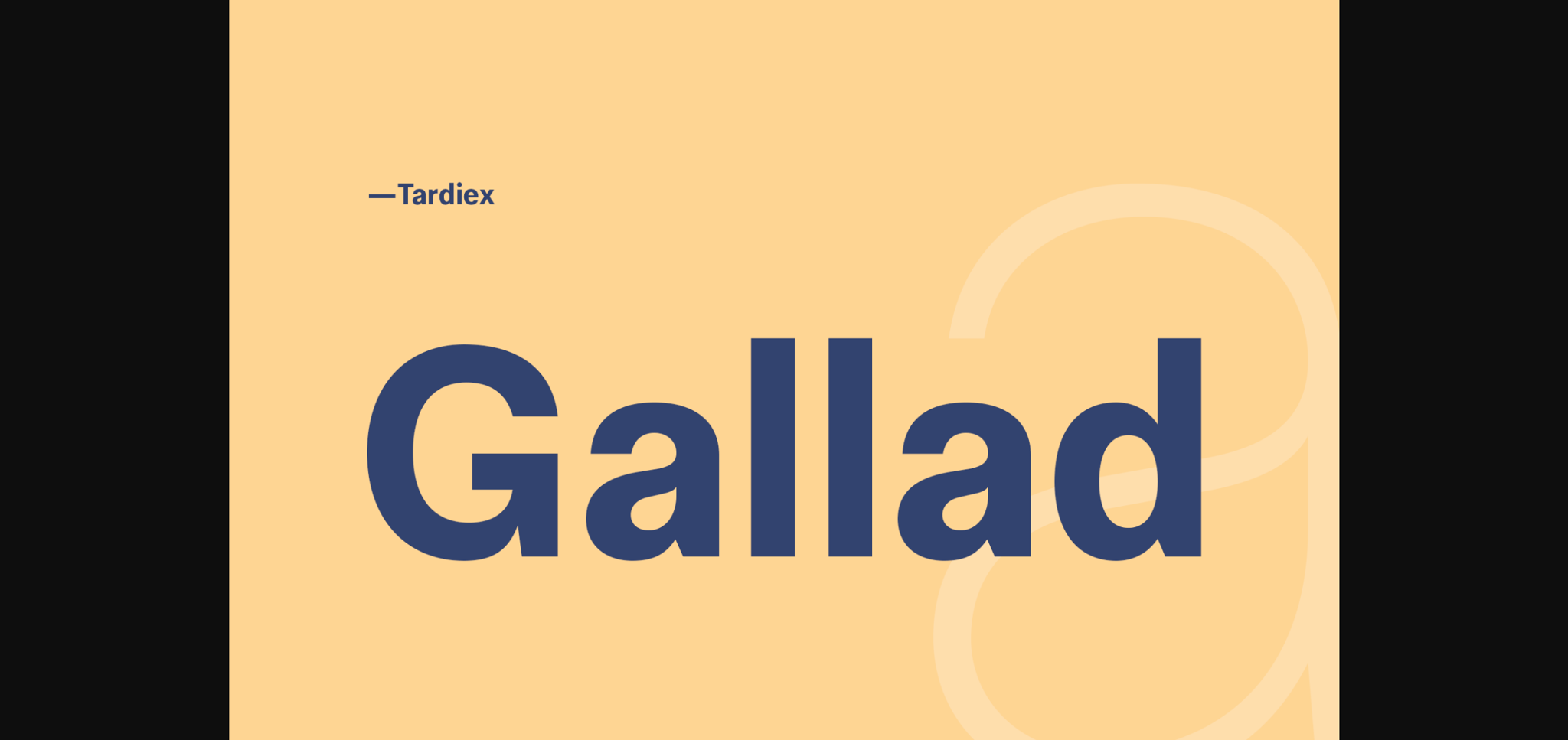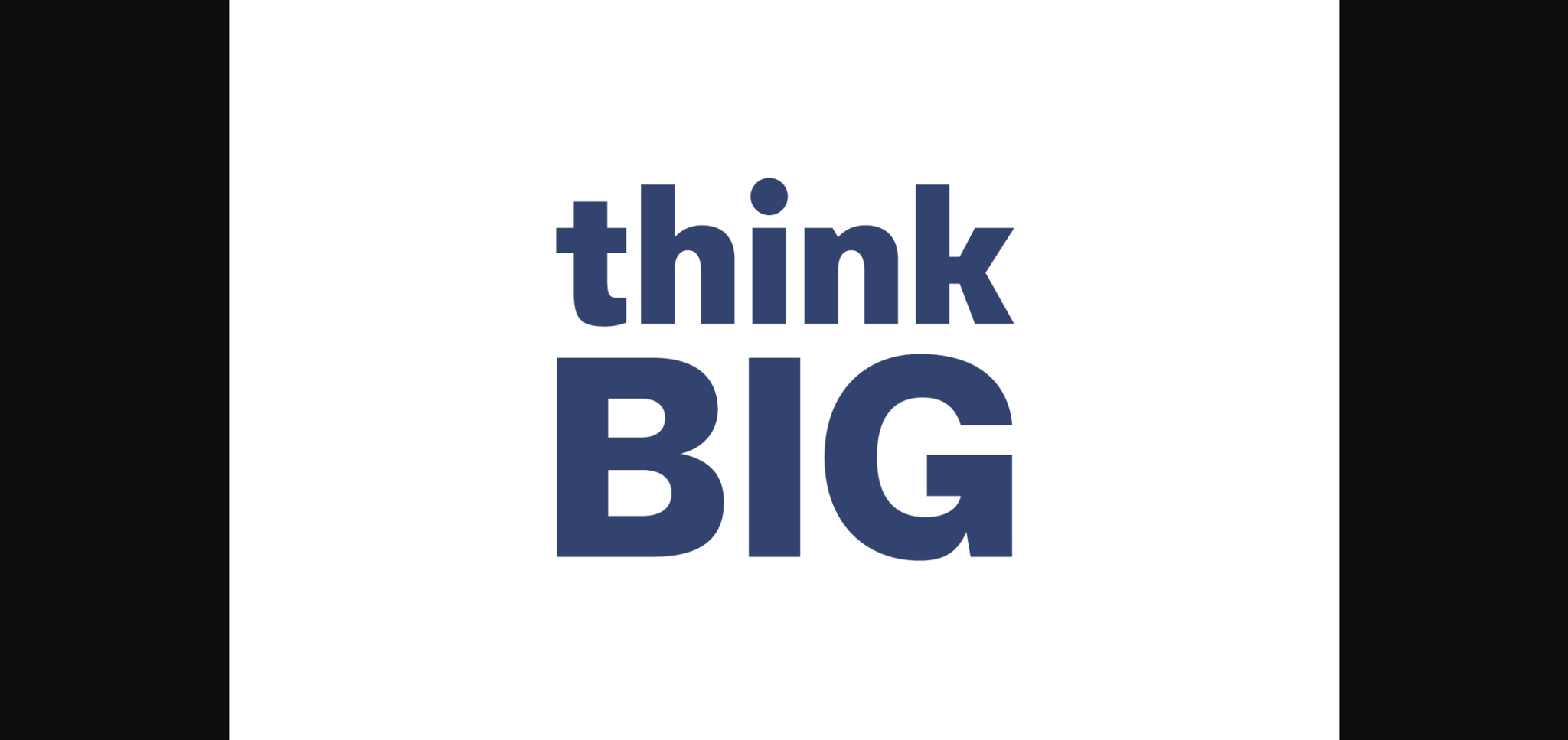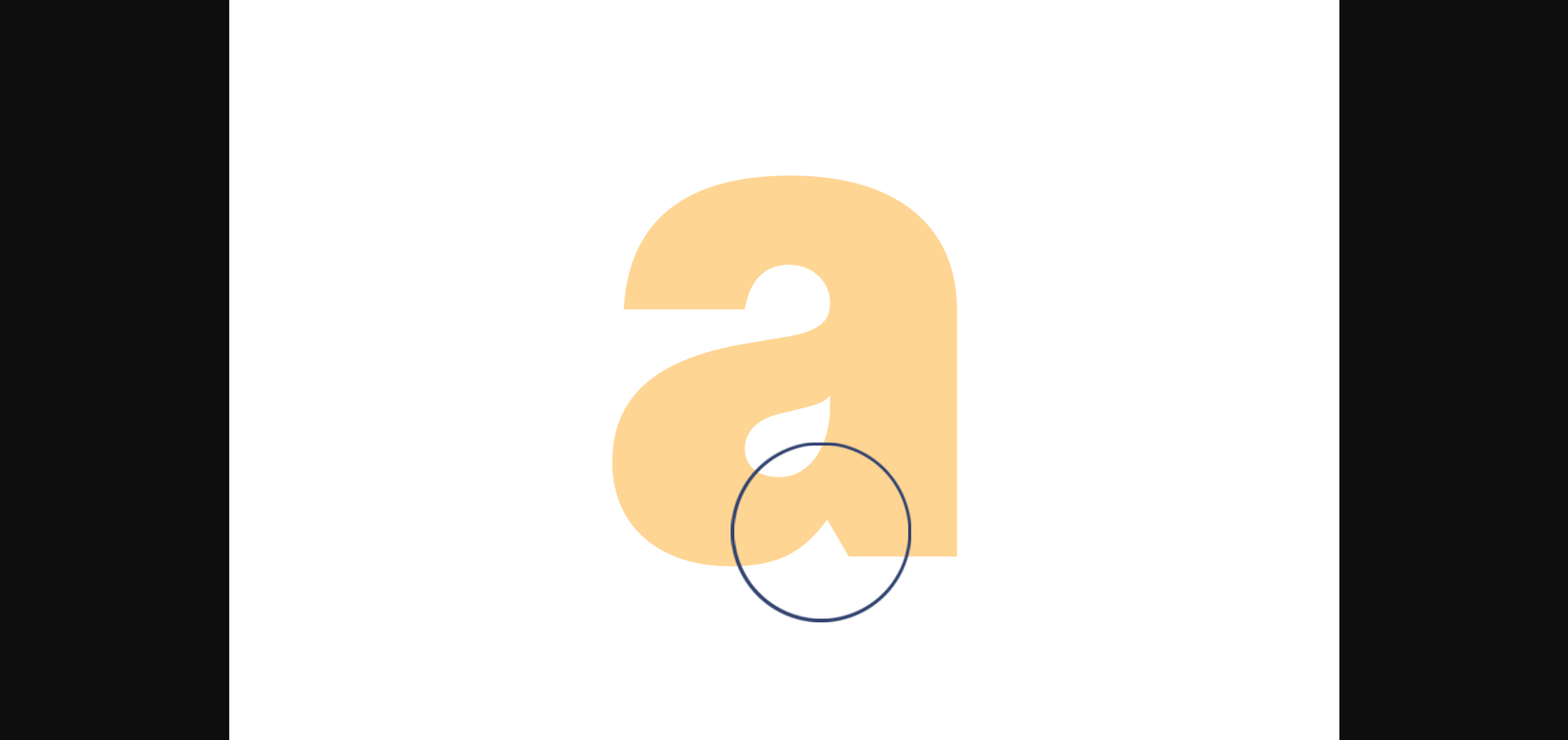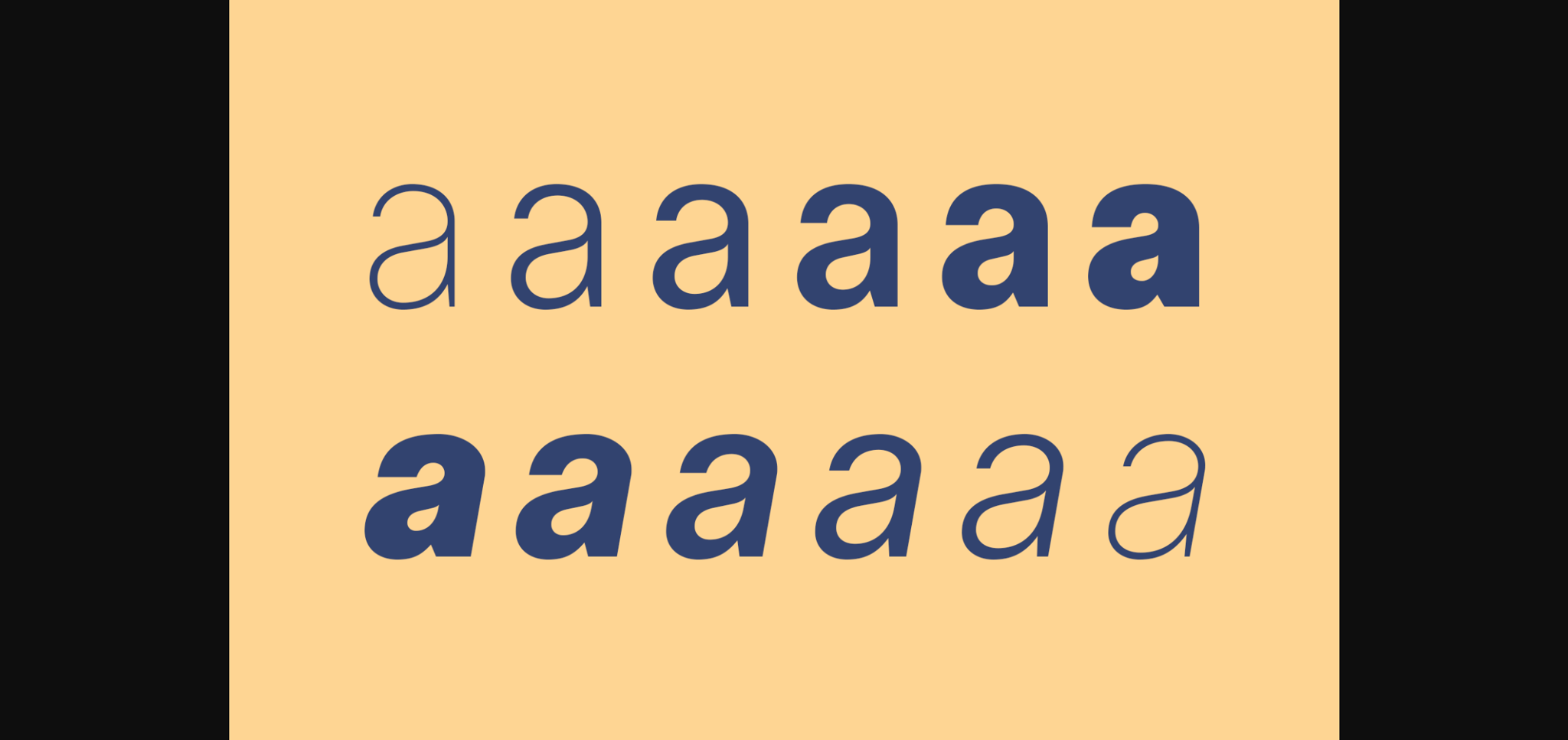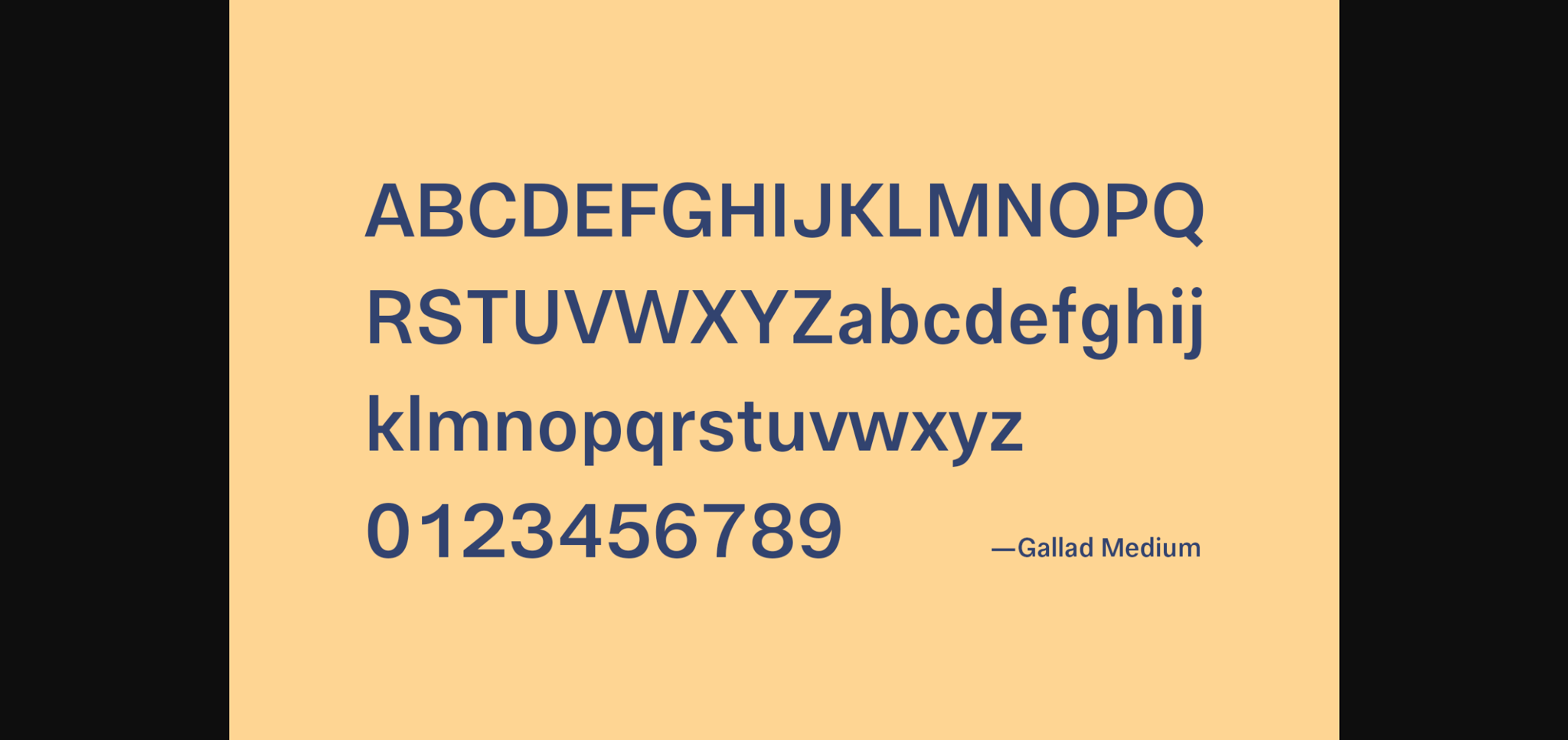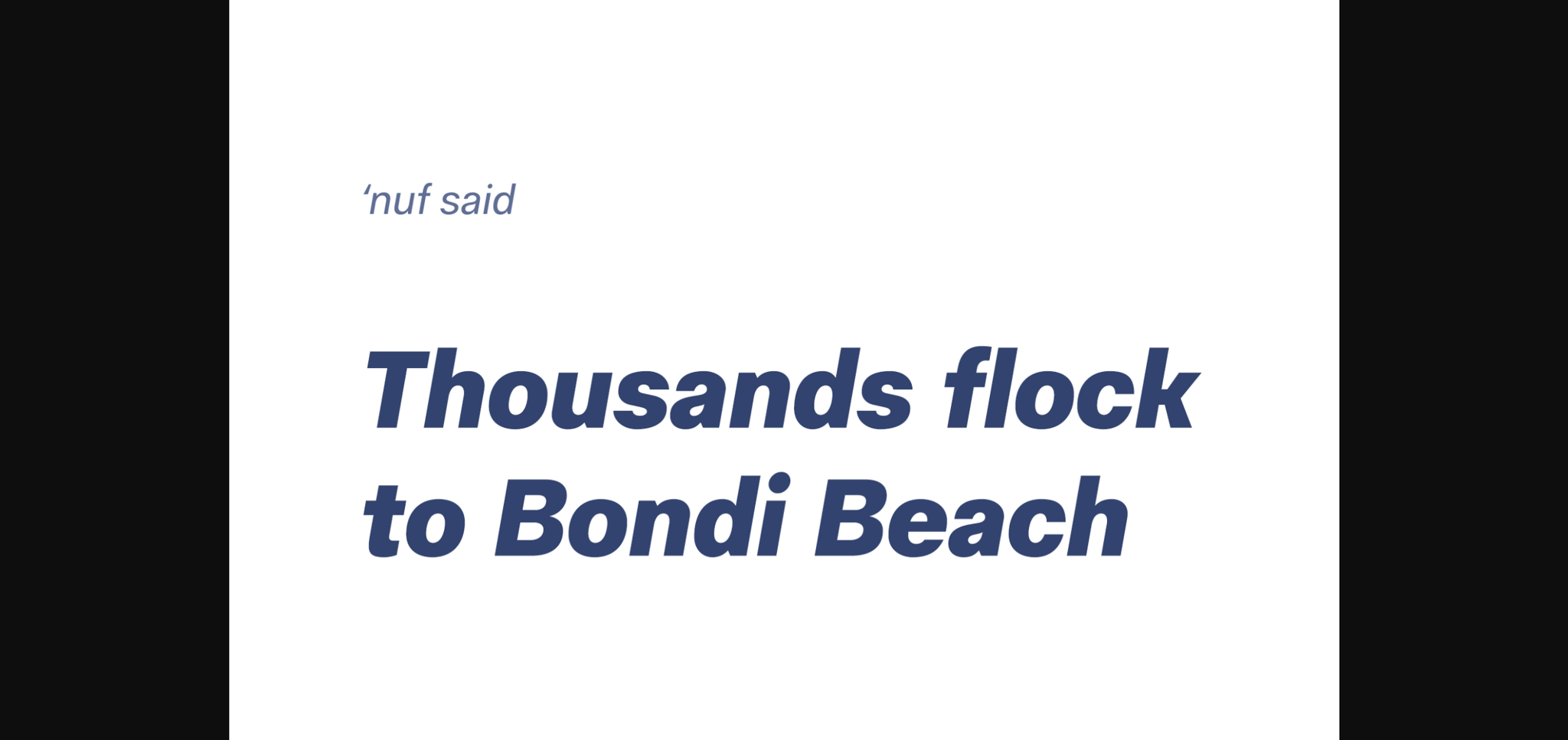
Gallad Font
Gallad is a sans serif typeface family meticulously designed with an array of OpenType features catering to advanced typography requirements. Its versatile capabilities include ligatures, fractions, superscripts, subscripts, tabular figures, and more, ensuring comprehensive support for various typographic nuances.
Comprising six weights ranging from delicate thin to bold black, Gallad boasts extensive multilingual support, making it an ideal choice for diverse design applications. Whether for branding, logo creation, advertising, packaging, editorial projects, publishing endeavors, or web and screen design, Gallad effortlessly blends functionality with aesthetic appeal, elevating any typographic composition to new heights of sophistication.